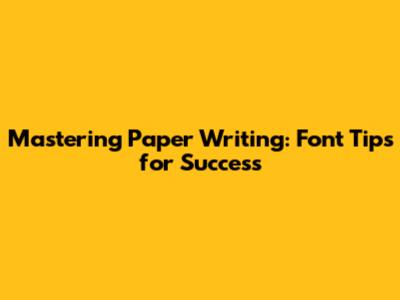
Hey guys! Ever feel like your awesome paper gets lost in the crowd because of some font-related mishap? Don't sweat it! We're diving deep into the world of paper writing, specifically focusing on the font. You know, that little detail that can make or break the overall vibe and readability of your work. Getting the font right is a crucial aspect of academic writing, helping to create a polished and professional look for your papers. This isn't just about picking a font you like; it's about understanding how different fonts affect readability, formatting, and the overall impression your paper makes. So, let's unlock the secrets to choosing the perfect font and making your papers shine!
The Significance of Font Choice in Academic Papers
Alright, let's talk about why fonts are so darn important. Choosing the right font is way more than just a style preference. Think of it as a crucial ingredient in the recipe for a successful academic paper. A good font makes your paper super easy to read, which is critical for your audience. Believe me, professors and instructors will appreciate the effort. When you pick a font that's clear and easy on the eyes, you're helping your readers focus on your brilliant ideas, not straining to decipher your words. A well-chosen font improves the paper's visual appeal. It's a key part of the first impression. A good font can enhance the paper's professionalism. This is important as you are trying to impress. It helps in the formatting. A good font works well with your chosen margins, spacing, and headings, resulting in a clean, organized look. A font influences the impression. Fonts often contribute to the tone of the paper, whether formal, informal, or academic. Ultimately, a good font increases the chances of your work getting the attention it deserves and helps it stand out for all the right reasons. Choosing the right font can significantly impact the way your paper is perceived. A well-chosen font conveys a sense of professionalism, attention to detail, and a commitment to clarity. This, in turn, can positively influence the reader's perception of your ideas and arguments. Consider the impact of the font on readability. When a font is easy to read, it enhances the reader's comprehension and reduces the cognitive effort required to process the information. This is particularly important in academic papers, where the goal is to communicate complex ideas clearly and effectively. Different fonts have different characteristics, such as the width of the letters, the spacing between them, and the presence or absence of serifs. These characteristics can affect how the font appears on the page and how easy it is to read. The font should be easy to read and should not cause any strain on the reader's eyes. It will make your work much more appealing. By carefully considering the font you use, you can ensure that your paper looks and reads its best.
Popular Font Choices and Their Characteristics
Now, let's get into some of the most popular fonts and what makes them tick. When it comes to academic writing, there are a few fonts that have become the gold standard. Choosing the right font is about more than just aesthetics; it's about optimizing readability and ensuring your work looks professional. The most common is Times New Roman. It's a classic for a reason! Times New Roman is a serif font, meaning it has those little strokes (serifs) at the end of each letter. It's often praised for its readability, especially in print. However, it can sometimes feel a bit dated, so while it's safe, consider whether it's the best fit for your paper. Up next we have Arial. Arial is a sans-serif font. This means it lacks the small decorative strokes found in serif fonts. Arial is known for its clean and modern look. It's often used for online documents and presentations. But it can sometimes appear a bit too casual for formal academic papers. Then there's Calibri, another popular sans-serif font. Calibri is often used in newer versions of Microsoft Office. Its rounded edges and good spacing make it super readable on screens. It is easy to read on paper as well. Lastly, let's mention Garamond. Garamond is a serif font, known for its elegant and timeless appearance. It's often considered a good choice for longer texts, thanks to its high readability and classic feel. When selecting a font, make sure to consider the font's design. This includes whether it is serif or sans-serif, and the overall appearance of the letterforms. Consider the font's spacing. This refers to the space between the letters. Pay attention to the font's size. The size of the font you use can affect the readability of your paper. Make sure to consider the intended use of the font. Some fonts are better suited for print, while others are better for digital use. Keep these things in mind when picking a font.
Font Size, Spacing, and Formatting Guidelines
Okay, now let's dive into the specifics of font size, spacing, and formatting. It's not just about the font itself, but also how you use it. For academic papers, the standard font size is usually 12 points. This size strikes a good balance between readability and fitting enough text on a page. The proper spacing is equally important. Double-spacing is a standard. This is the common practice for the body of your paper. It helps the reader easily follow the text and allows space for comments and editing. The headings must stand out from the text. Make sure the headings are a different size or font style. Make sure the paragraphs are separated clearly. Indenting the first line of each paragraph is another method to separate them. Use the formatting options. The use of bold, italics, and underlining can emphasize key points and organize the structure of your paper. Be careful not to overuse these features, as it can be distracting. Pay attention to consistency. Maintain uniform formatting. This includes font size, spacing, and heading styles, throughout your entire paper. A consistent look is important in creating a professional paper. Readability is the most important factor. The key is to optimize your paper for easy reading. Using clear formatting rules contributes to the overall clarity and readability of your paper. The use of margins also contributes to a good format. Standard margins are typically one inch on all sides. This leaves enough space around the text, giving your paper a polished and professional look. Use a consistent approach. When it comes to font size, spacing, and formatting, consistency is key. Make sure the entire paper adheres to the same standards. Make it easy to read, and your paper will stand out.
Practical Tips for Font Selection and Usage
Ready to get practical? Here are some quick tips to help you choose the perfect font and use it like a pro. First off, understand the requirements. Always check with your professor or the guidelines. They may have specific font preferences, so follow their instructions to a T. Next up, prioritize readability. Make sure the chosen font is easy to read, at all times. Test it out! Print out a sample of your paper and see how the font looks on paper. Experiment a bit. Try out different fonts to see which one you like. But stay within the standard. Make sure you don't use too many different font styles in your paper. Keep the document neat. Less is always more. Keep the formatting consistent throughout the paper. Use bold or italics to emphasize key points. Don't go crazy. Keep it easy to read. Another suggestion, is to use a font that looks professional. Make sure you avoid fonts that look too casual. Get feedback from others! Get feedback from your peers. See if they think your paper is easy to read. Proofread. After you are done with the paper, proofread it and make sure it has the proper font and formatting. Be sure that everything is correct. By following these practical tips, you can select and use fonts in a way that enhances the clarity and professionalism of your academic writing. Remember, the right font not only improves readability but also reflects your attention to detail and commitment to quality.
Avoiding Common Font-Related Mistakes
Let's talk about the common mistakes that can mess up your font choices. Overuse of different fonts is the first mistake. Stick to one or two fonts at most. The more different fonts you use, the more distracting it will be. It's difficult to read. Next up, is a small font size. If you make the font size too small, it can be hard to read. Stick to a standard size. The next error is to not follow the instructions. Always check if there are specific font requirements. If you do not follow them, it may impact your grade. Neglecting readability is another common mistake. Always put readability first. Pick a font that is easy to read. Poor formatting is another error that must be avoided. Avoid having inconsistent formatting. Keep everything neat and uniform. The last point, is to not proofread. Always proofread your papers. Double-check your font choice, size, spacing, and formatting. You can avoid making these common mistakes by paying close attention to font selection, and using the right formatting.
Conclusion: Perfecting Your Font Game
Alright guys, we've covered the ins and outs of font selection for your academic papers. From the importance of font choice to the practical tips on picking and using them, hopefully, you now feel more confident. Remember, the right font choice is not just about aesthetics. It's about readability, professionalism, and making sure your brilliant ideas shine. So, go forth, choose your fonts wisely, and may your papers always be clear, compelling, and beautifully formatted! Keep these tips in mind as you work on future papers.